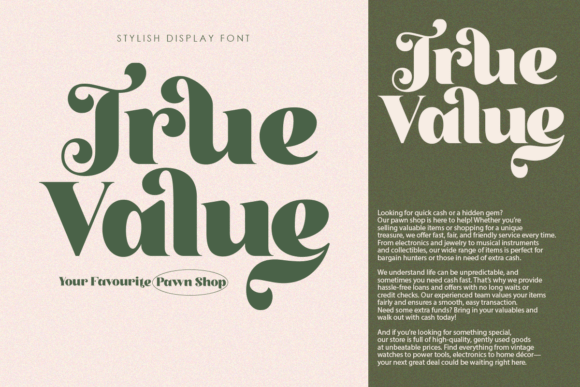
Vastile Font: Elevate Your Design with Luxury and Timeless Appeal
In the world of typography, fonts play a crucial role in defining the visual identity of a brand, product, or creative project. Among the numerous fonts available, Vastile stands out as a stylish serif font that seamlessly blends classic curves with modern flair. This article will delve into the features, applications, and benefits of using Vastile Font in your designs.
What is Vastile Font?
Vastile is a carefully crafted serif font that combines traditional elegance with contemporary sophistication. Each letter in the Vastile font is meticulously designed with ornamental swashes and unique details, making it an ideal choice for designs that require a touch of luxury and artistry.
Key Features of Vastile Font
- Classic Curves and Modern Flair: Vastile’s design balances traditional serif elements with modern twists, creating a distinctive and stylish look.
- Ornamental Swashes: The font features intricate swashes that add a decorative touch to each letter, perfect for designs that require a high level of sophistication.
- Unique Details: Every letter in the Vastile font is crafted with unique details that set it apart from more conventional fonts.
- High-End Aesthetic: The overall design of Vastile exudes luxury and elegance, making it suitable for high-end branding and creative projects.
Applications of Vastile Font
Vastile’s versatile design makes it suitable for a wide range of applications. Here are some of the ideal uses for this stylish serif font:
1. High-End Branding
For brands that aim to convey luxury, sophistication, and elegance, Vastile is an excellent choice. Its unique design elements and ornamental swashes make it perfect for creating memorable logos and brand identities.
2. Editorial Layouts
Vastile’s readability and stylish appearance make it ideal for editorial layouts, including magazines, newspapers, and digital publications. It adds a touch of class to any article or feature, making the content more engaging and visually appealing.
3. Product Packaging
For product packaging, especially for luxury goods, Vastile can help create a premium look. Its elegant design ensures that the packaging stands out on store shelves and conveys a sense of high quality.
4. Fashion-Themed Projects
The fashion industry often requires fonts that exude style and sophistication. Vastile, with its modern flair and classic curves, is perfect for fashion magazines, brand logos, and promotional materials.
Benefits of Using Vastile Font
Using Vastile Font in your designs comes with several benefits:
1. Unique Visual Presence
Vastile delivers a striking visual presence that effortlessly captures attention. Its stylish and expressive design makes it ideal for headlines, logos, and any creative work where beauty and charm are essential.
2. Versatility
Vastile is a versatile font that can be used in various design projects, from high-end branding to editorial layouts and product packaging. Its adaptability makes it a valuable addition to any designer’s font library.
3. Timeless Appeal
While Vastile has a modern flair, it also possesses a timeless quality that ensures it remains relevant for years to come. This makes it a smart investment for designers and brands looking for a long-term typographic solution.
4. Enhanced Creativity
The ornamental swashes and unique details in Vastile provide ample opportunities for creative expression. Designers can experiment with different styles and applications, pushing the boundaries of their designs.
How to Use Vastile Font Effectively
To maximize the impact of Vastile Font in your designs, consider the following tips:
1. Pair with Complementary Fonts
For optimal results, pair Vastile with complementary fonts that enhance its features. A sans-serif font can create a striking contrast and add balance to your design.
2. Use for Headlines and Titles
Vastile’s ornamental swashes and unique details make it perfect for headlines and titles. Its stylish appearance can add a touch of elegance to any design, making it more engaging and visually appealing.
3. Experiment with Swashes
Take advantage of Vastile’s ornamental swashes to add a decorative touch to your design. Swashes can be used to create a more dramatic effect, especially in logos and branding materials.
4. Maintain Readability
While Vastile is designed to be stylish, it’s essential to ensure readability, especially in body text. Use font sizes and line spacing effectively to maintain clarity and readability.
Vastile Font is a stylish serif font that blends classic curves with modern flair, making it an excellent choice for designers and brands seeking to elevate their visual identity. With its ornamental swashes, unique details, and high-end aesthetic, Vastile is perfect for a wide range of applications, from high-end branding and editorial layouts to product packaging and fashion-themed projects. By incorporating Vastile into your designs, you can create a striking visual presence that captures attention and conveys a sense of luxury and sophistication.
Whether you’re working on a high-end branding project, a fashion magazine, or a luxury product packaging design, Vastile Font is sure to deliver a timeless appeal that enhances your creative work. Embrace the elegance and charm of Vastile, and let it elevate your design to new heights of sophistication and artistry.